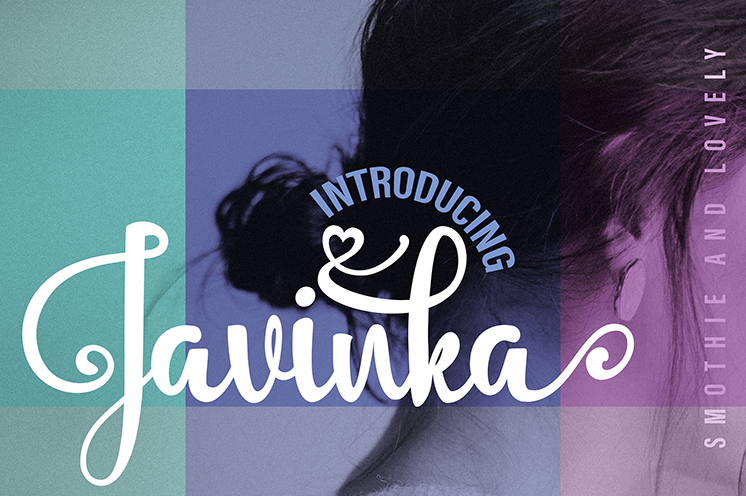
Thanks for checking out Javinka Script! A fabulously fun yet elegant script font with love of energy, allowing you to create beautiful hand-made typography in an instant. Javinka Script is guaranteed to make your text stand out - perfect for logos, printed quotes, invitations, post cards, product packaging, headers and whatever your imagination holds.
What's really awesome is that Javinka Script comes with a complete set of lowercase alternates, which allows you to create even more authentic custom-feel text, which allows you to add some really unique and elegant finishing touches to your script text.
1. Javinka Script A handwritten script font containing upper & lowercase characters, numerals and a large range of punctuation.
2. Javinka Script Alt This is a second version of Javinka Script, with a completely new set lowercase characters.